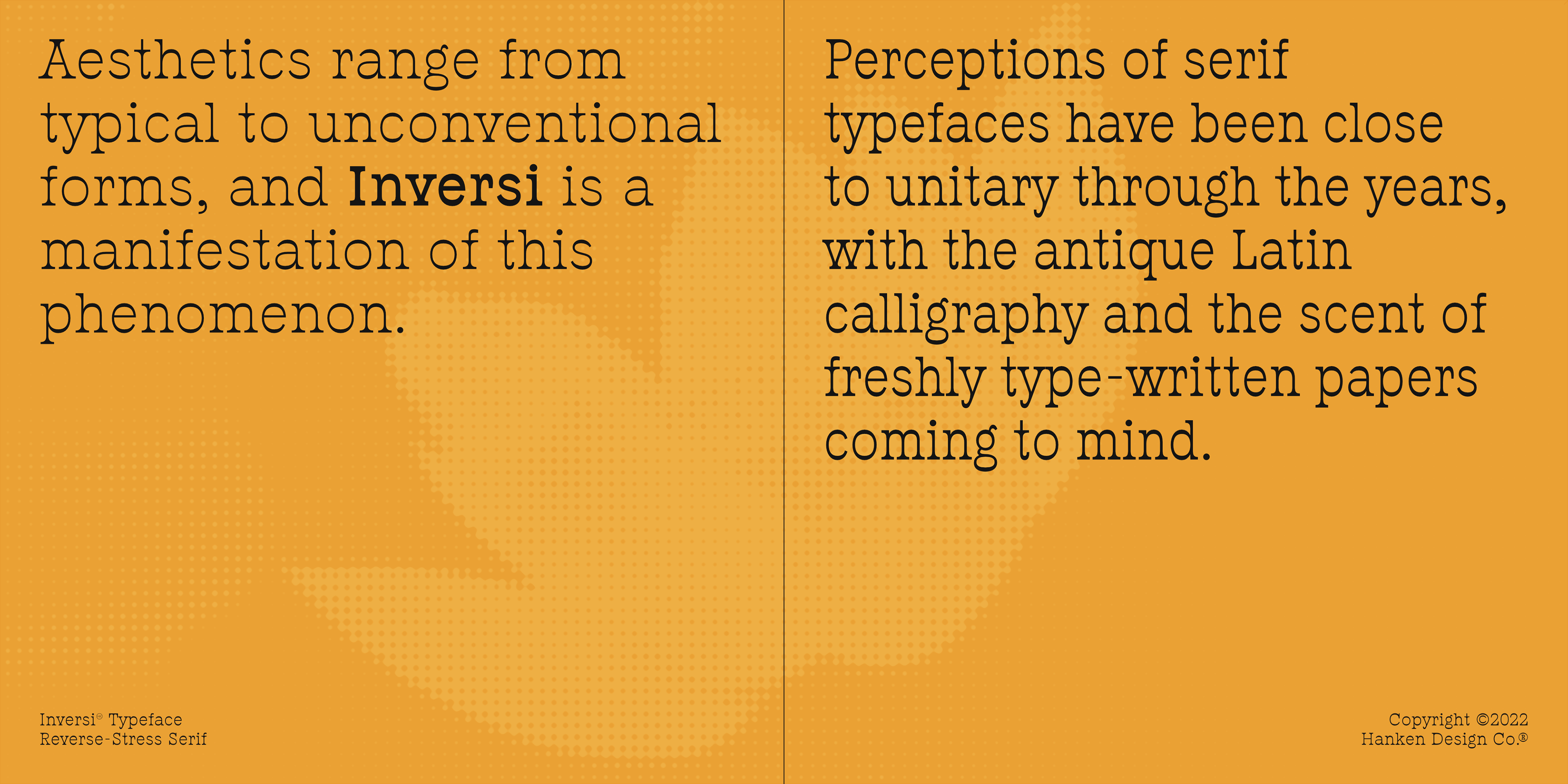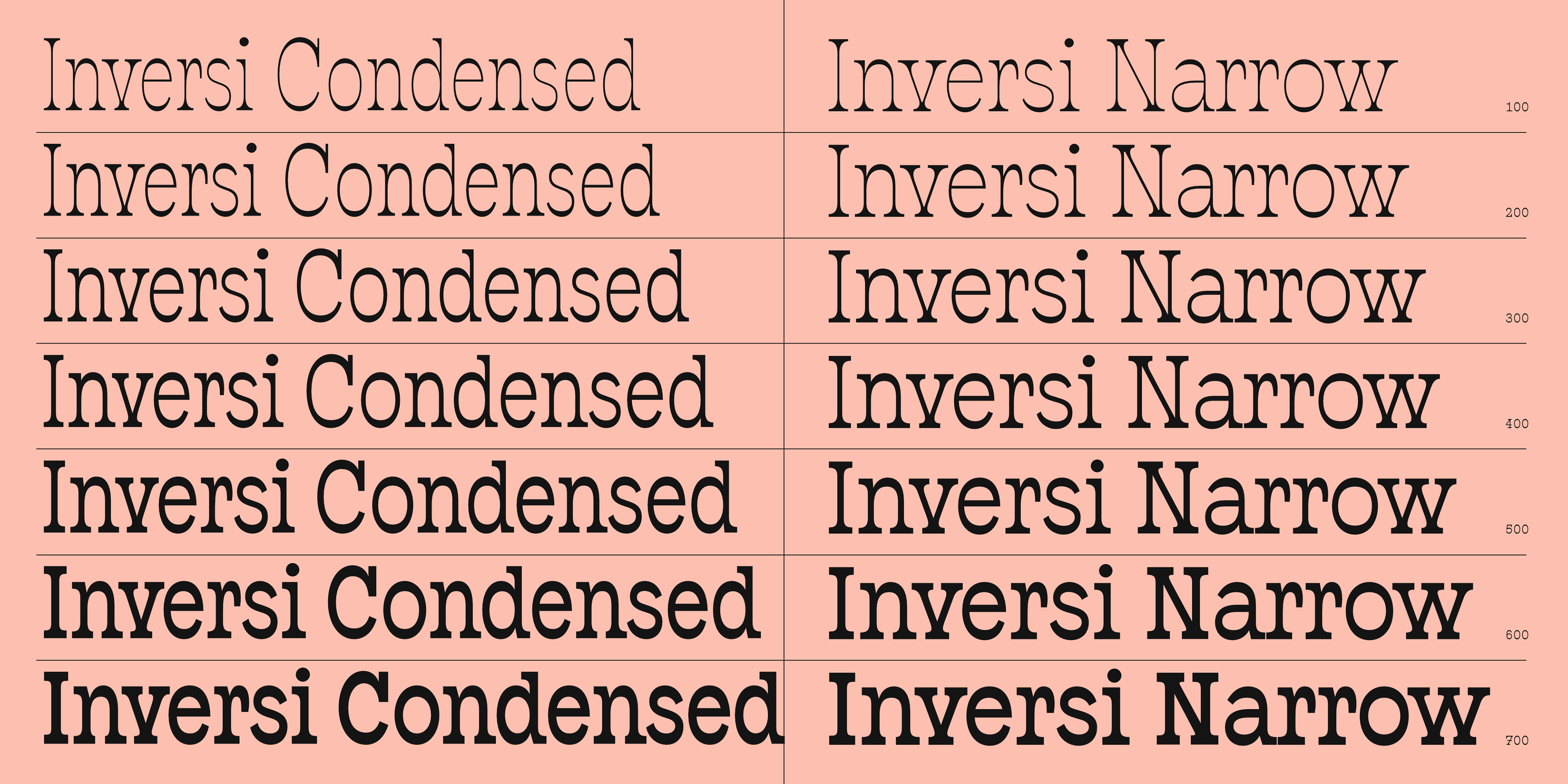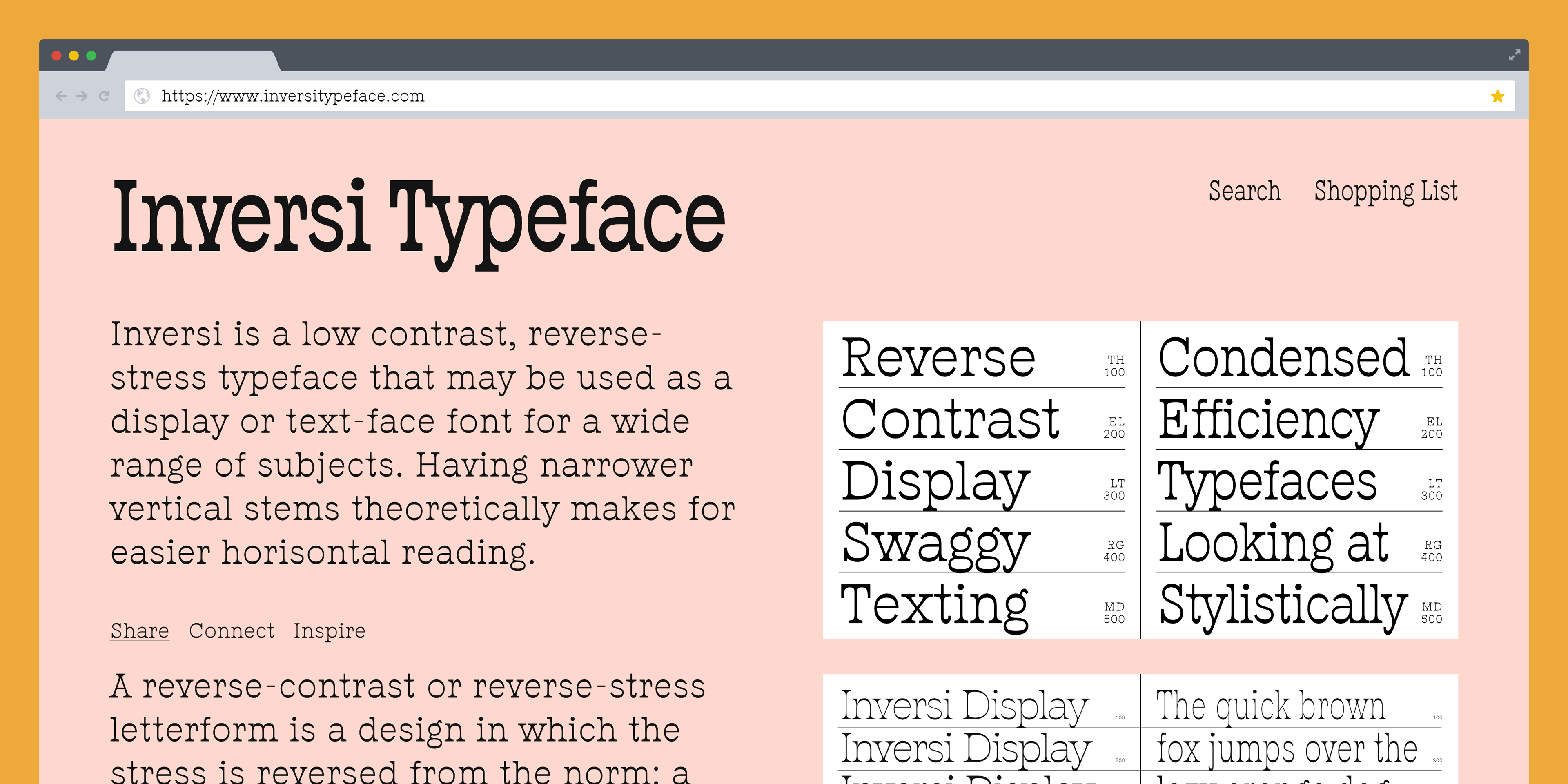
Aesthetics range from typical to unconventional forms, and Inversi is a manifestation of this phenomenon. Perceptions of serif typefaces have been close to unitary through the years, with the antique Latin calligraphy and the scent of freshly typewritten papers coming to mind.
Although it began as a parody, the strokes of reverse-contrast letterforms did not weather in appeal since its first appearance in 1821. Designers of today produce different renditions of this masterpiece. Nevertheless, the beauty of Inversi extends beyond merely bending the norms on serif typefaces as to whether horizontal or vertical lines should be the thickest. At first sight, its unique feature might be unnoticeable to those who do not know reverse-stress types, but a curious mind will get relentlessly boggled as to what makes a seemingly simple font worthy of attention. Peculiar as the wrongly printed serifs may appear, the thin vertical slices compared to that of socially labeled standard stroked alphabets and numbers can instantly become a fan favorite. Exclamation points and other symbols may leave a louder expression through Inversi. The virtual uniformity of the line thickness makes this font stealthily memorable for anyone, not only artists and visual design enthusiasts.
Inversi comes in equally satisfying forms for an imaginative creator to play with boldness. From the thinnest to the boldest, the oddity of the font face gets retained, so one can never make a mistake with any choice. Regardless of line width, the typeface guarantees its immediate attractiveness to any observer, which may assist in leaving a positive reinforcement of finding the beauty in the unusual. Reverse-contrast fonts take pride in eccentricity, making them the ultimate showstopper in any heading or title. But for someone fond of experimentation, there is nothing undesirable in the modernity of Inversi, even in the body of texts.
Inversi is a reverse-stress typeface that may be used as a display or text-face font for a wide range of subjects. Compared to other reverse-stress/reverse-contrast typefaces, Inversi's linear contrast is much lower which, at lower sizes, makes it a good options for text or captions. It has good language support, unique design, fractions, and three different widths.
Inversi pairs well with HK Requisite. Use the narrow or condensed style when mixing with HK Requisite to give more contrast to the composition.